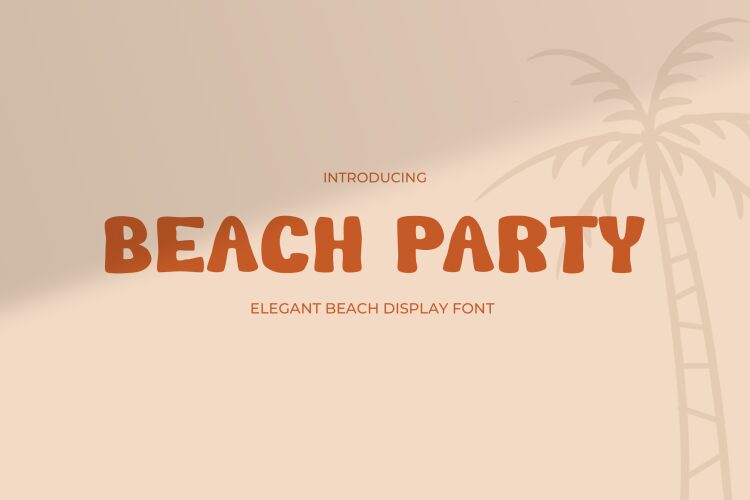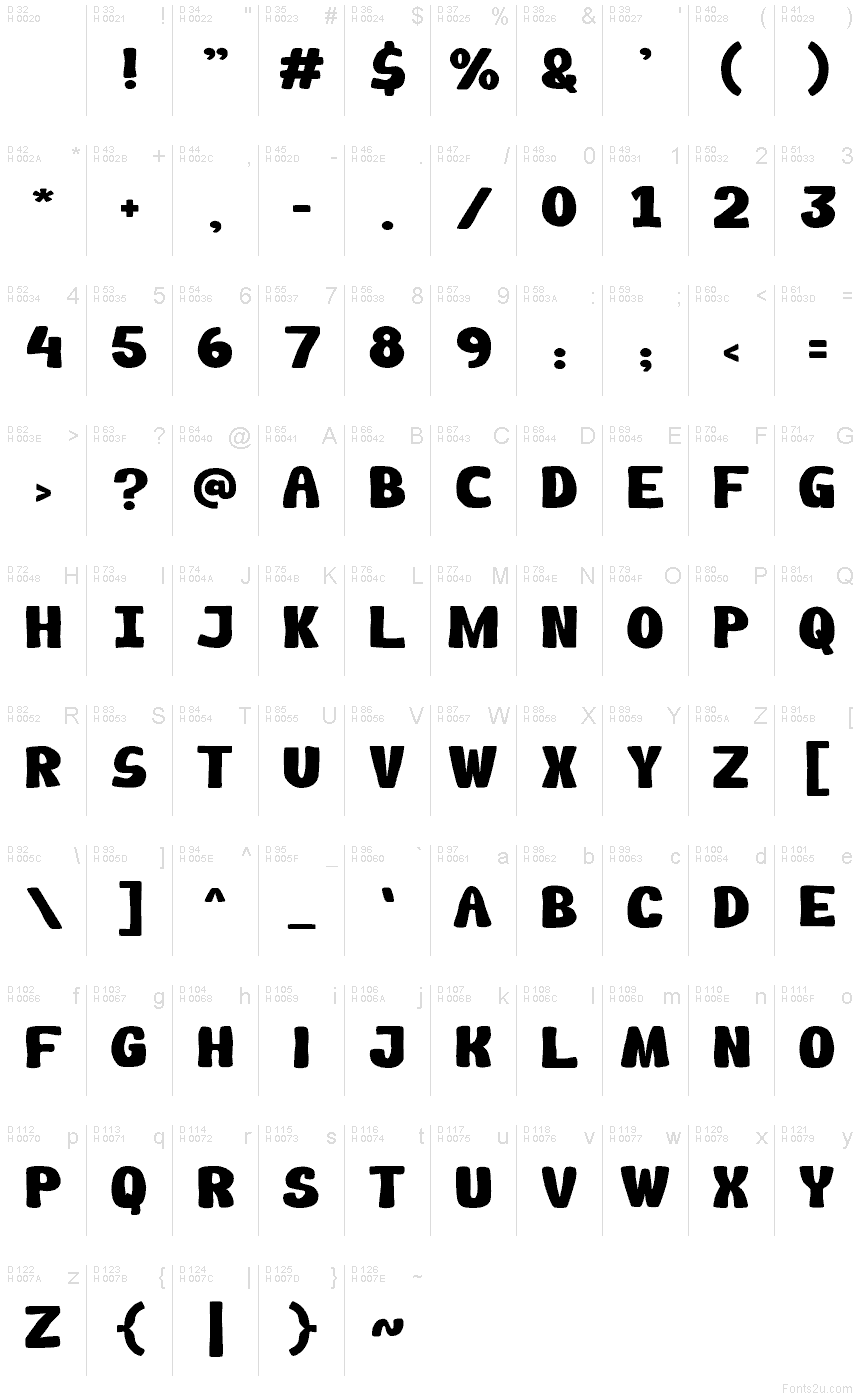
Beach-Party
Beach Party font by Pinisiart is a free display cartoon font with carefree irregular shapes and casual aesthetics. It’s colorful, funky, and can be both vibrant or subtle based on the adopted color palette. The irregular characters exude a groovy, retro vibe that feels both natural and nostalgic at the same time.
This bold typeface completes projects in poster designs, music album covers, comics, branding labels for toys or food items targeted towards children of all ages. Use it in fashion designs inspired by historical trends or travel agencies that advertise homes away from home.